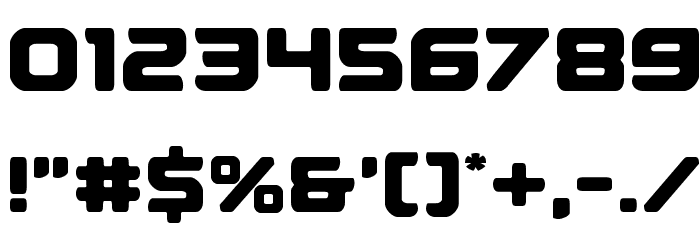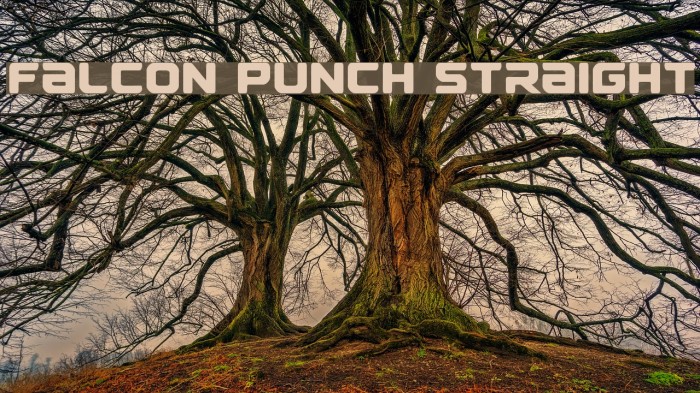
Falcon Punch Straight Font
This font features a bold, geometric style with rounded edges, giving it a modern and futuristic appearance. The characters are uniform in width, creating a monospaced feel, though they are not strictly monospaced. The uppercase and lowercase letters maintain a consistent height, enhancing readability and providing a cohesive look. The numerals and special characters follow the same design principles, ensuring a harmonious overall appearance. The font's distinct style makes it suitable for attention-grabbing headlines and display purposes, where a strong visual impact is desired.
A bold, geometric font with rounded edges and a modern, futuristic style.
- Proposed Projects: Ideal for branding, posters, video game graphics, and tech-related projects.